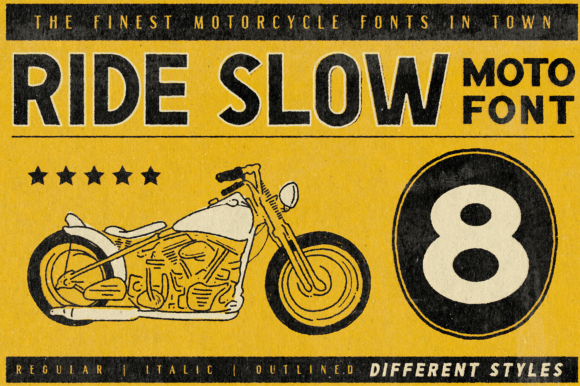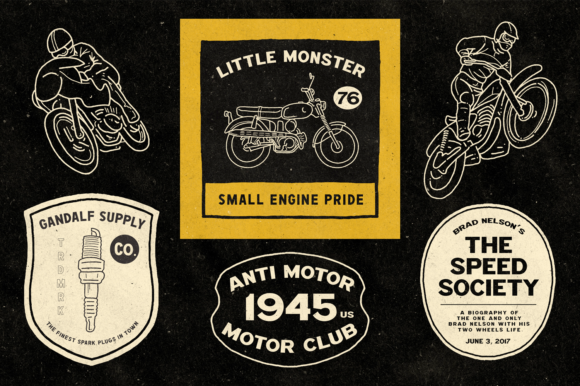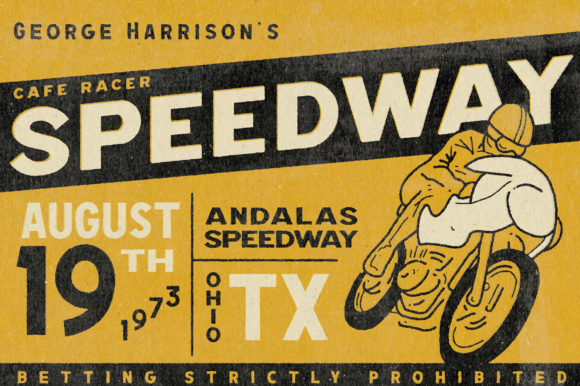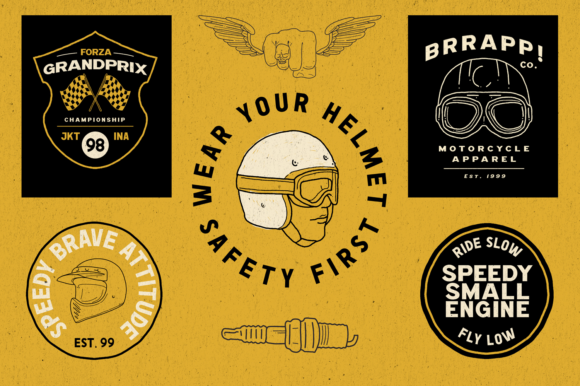
Ride Slow Font: Vintage Display Typography for Retro Logo Design
About the Ride Slow Font
Add a touch of class to your work with the Ride Slow Font, a truly exceptional typeface. Ride Slow is the perfect duo font (sans serif and dingbats), with many different styles to suit all creative needs! Inspired by the vintage motorcycle displays back in the 70s and 80s era, this duo will never disappoint!
Ride Slow’s bold, slightly rebellious personality makes it ideal for headlines, logos, and short-form text in projects related to motorcycles, vintage aesthetics, or streetwear. It works exceptionally well on posters, packaging, and social media graphics where its strong character can make a statement. However, its condensed nature and decorative elements make it unsuitable for body text or lengthy paragraphs; readability would suffer.
Pairing Ride Slow with a clean sans-serif like Open Sans for body copy provides excellent contrast and readability. For a more vintage feel, consider pairing it with a serif like Playfair Display. If a more playful vibe is desired, a handwritten script font could create an interesting juxtaposition.
The font’s overall retro-inspired energy lends itself to brands focused on vintage culture, rebellion, or a sense of freedom and adventure. Avoid using it in projects requiring a sophisticated or minimalist aesthetic.
Ride Slow Font Usage Examples
Ride Slow Font Example